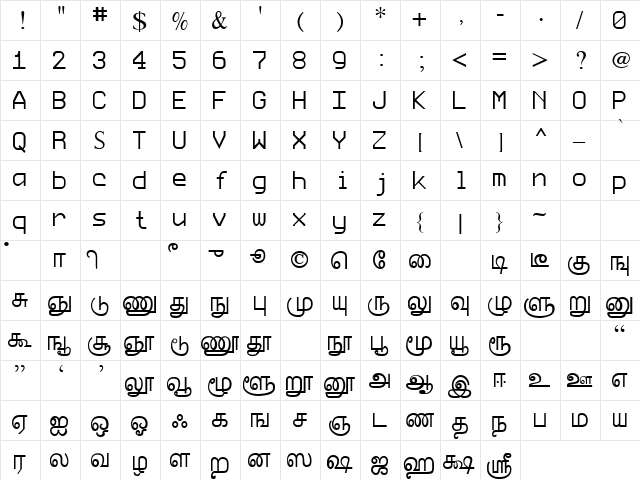
TABMylai Regular
Design Context for TABMylai Typeface
TABMylai takes a measured approach to typography — its balanced proportions and neutral character make it a reliable workhorse for both digital and print work.